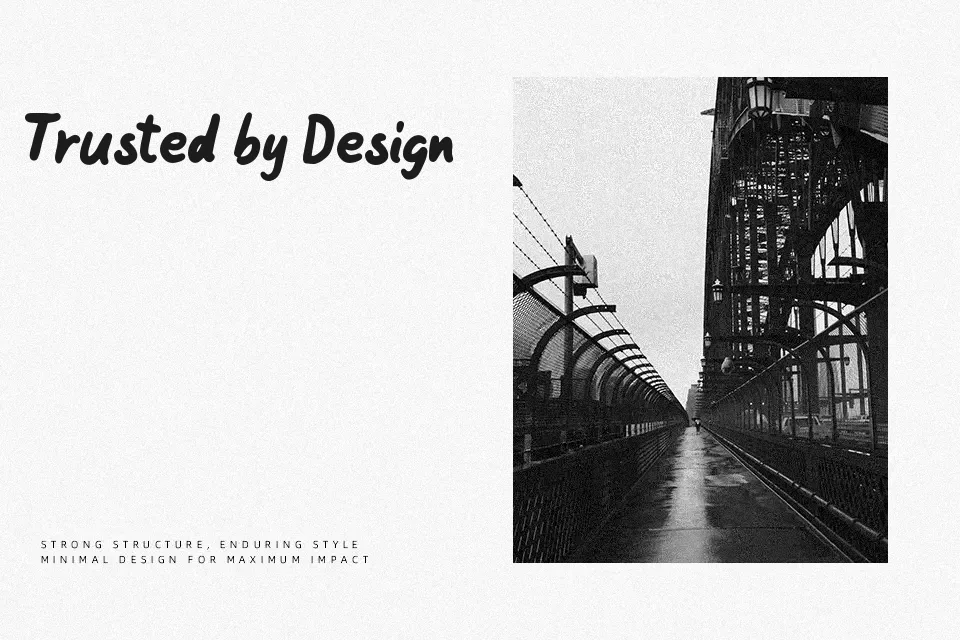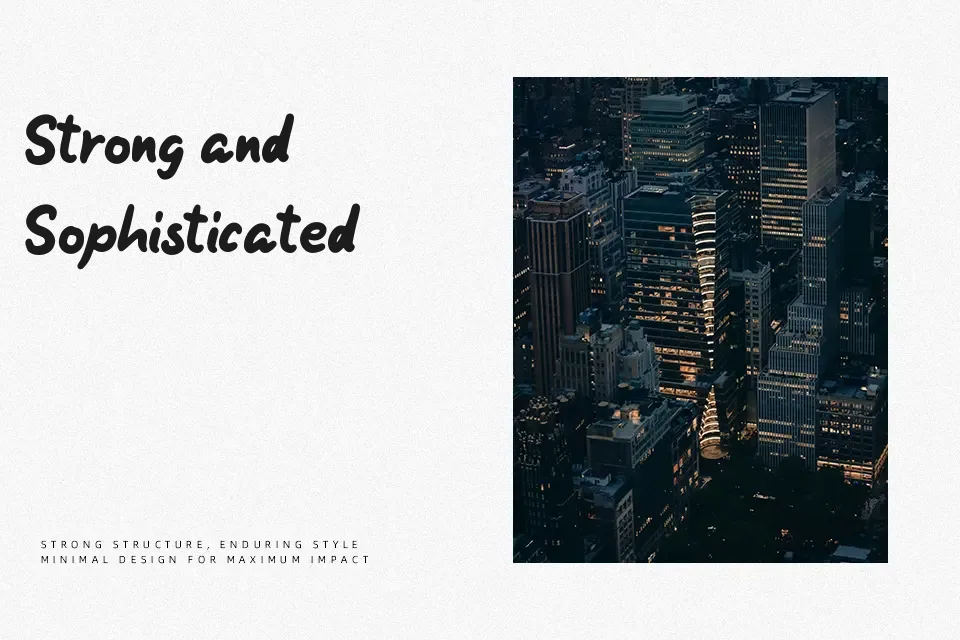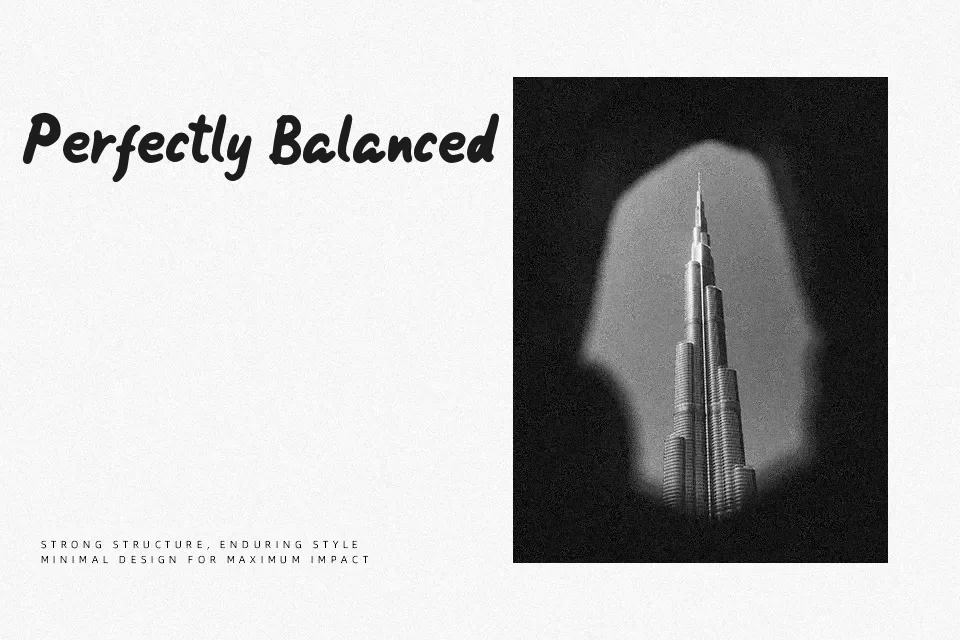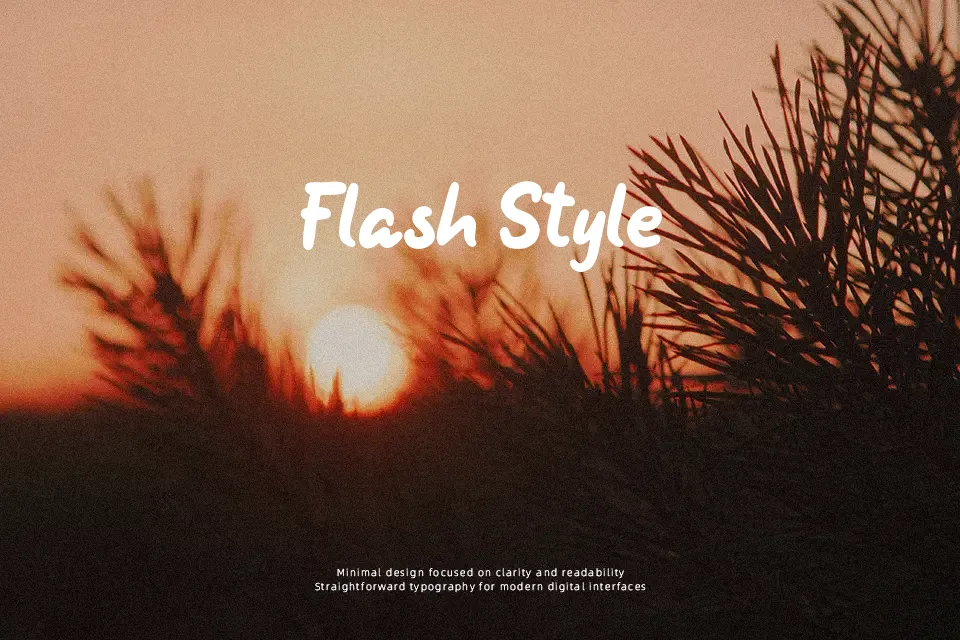
Sweaty Belvin Font
Designed by Kotak Kuning Studio
Sweaty Belvin Font presents exaggerated stroke weights and rounded terminals that establish a spirited, hand-drawn comic aesthetic. The uppercase glyphs feature irregular baselines and asymmetrical counters, while the tight character spacing creates a dense, sticker-like typographic texture. Moderate stroke contrast and bold outlines preserve letterform recognition in short titles, making the design well matched for animated video titles, toy branding, and youth event posters. However, the heavy weight and compact kerning significantly impair legibility across smaller sizes, making the typeface impractical for continuous paragraph reading. In display applications, the chunky letterforms provide strong decorative personality without sacrificing essential headline clarity.
– comic book cover titles
– children’s toy packaging
– animated video title cards
– casual gaming headlines
– continuous body text
– corporate annual reports
– dense editorial paragraphs
– mobile UI interface labels
Perfect for advertising, headline, and kids, with a bold and cartoon style.